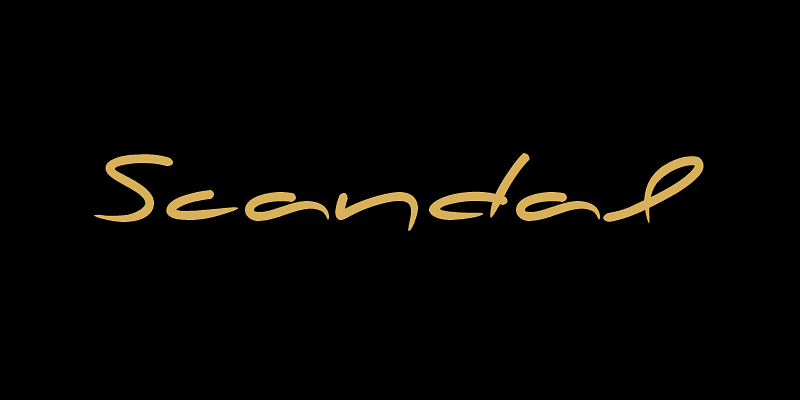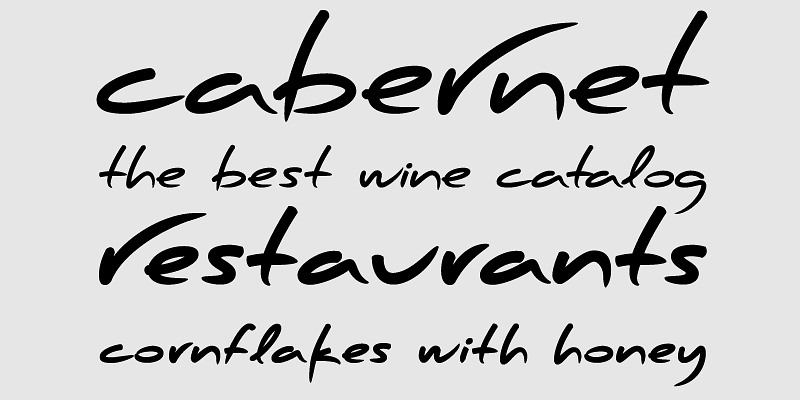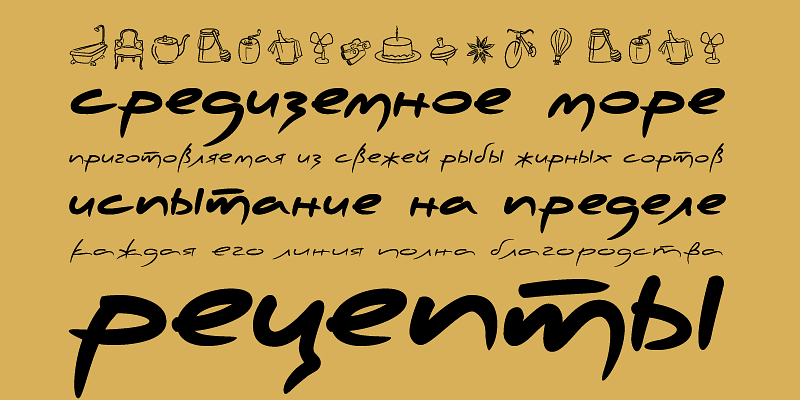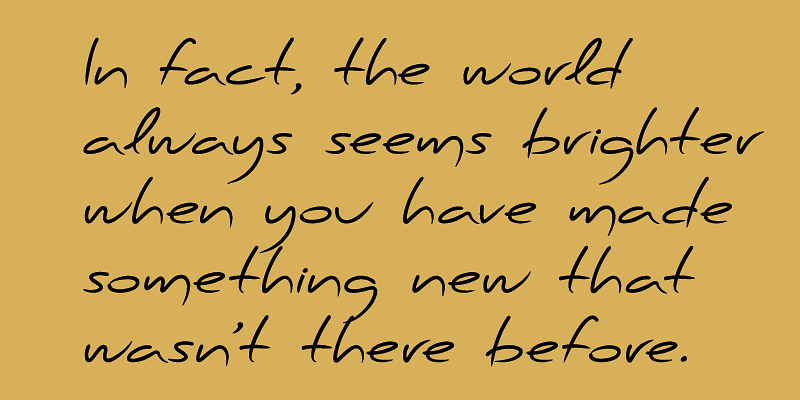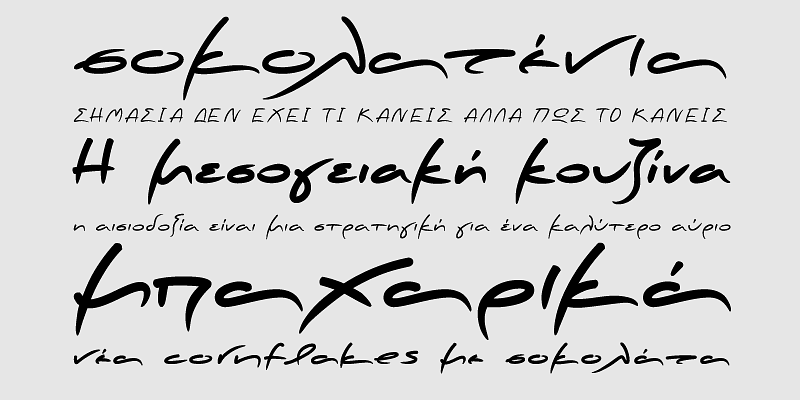
In the designer’s own words “a couple of years ago, when I was designing a package for a marmelade range, I started having a go at creating a typeface that would suit the package I had in mind. The whole process was intensely appealing to me: from merely using typefaces as an intricate part of my work as an art director, I started exploring the function of each and every element that a typeface consists of. The two things on my mind in designing a typeface for a marmelade brand were firstly, that I wanted it to have a hand-written feel, so as to exude that old-fashioned, home-made quality, and secondly, that it ought to have a certain sweetness and gentleness that would match the product. However, PF Scandal managed to outgrow its original inspiration. As I continued working on it, I toned down some of its elements to make it more versatile. And so, PF Scandal evolved into a typeface that has a contemporary, and yet hand-written look, which makes it suitable for a wide range of uses. It comes with the full array of European characters including Latin, Greek and Cyrillic as well as 120 matching pictograms”.